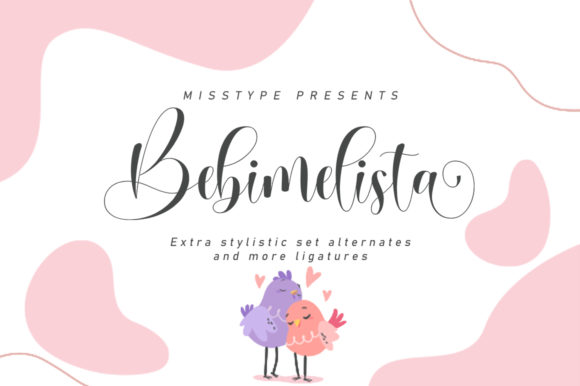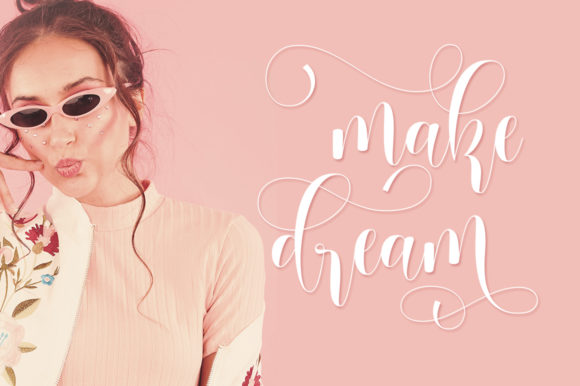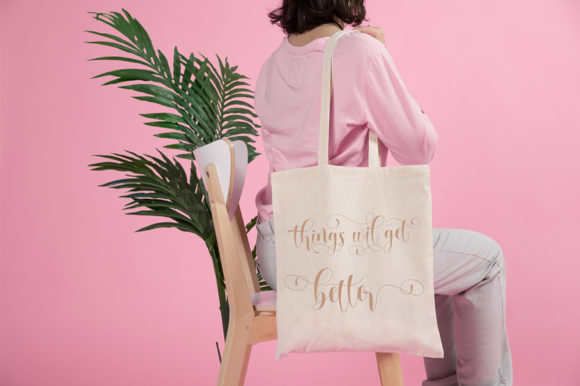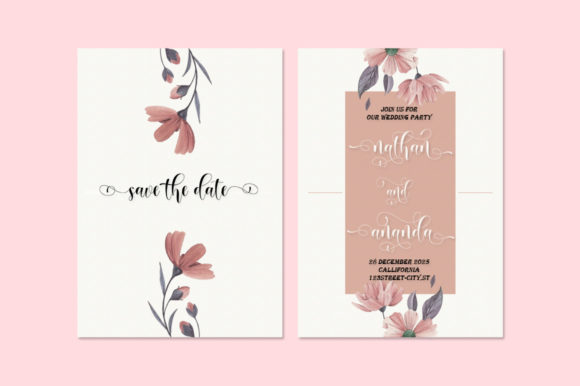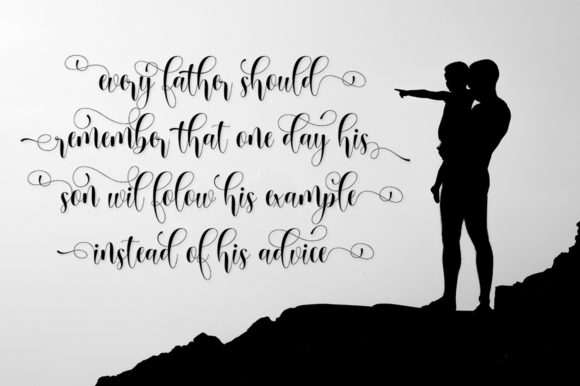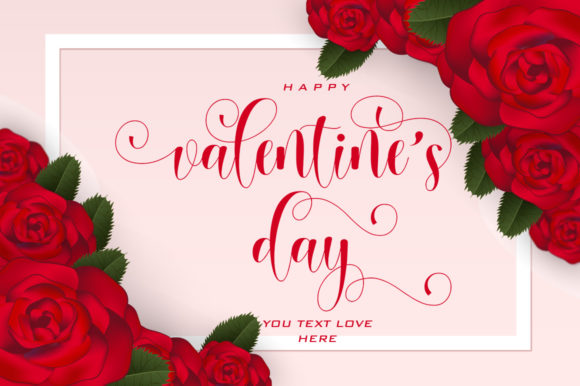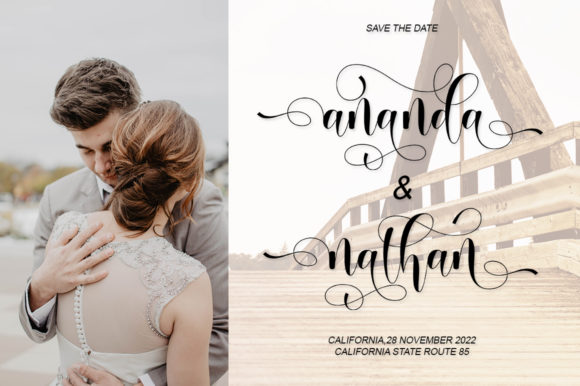
Bebimelista Font
About Bebimelista Font
Bebimelista is a gorgeous script font. The cute rounded characters make it the perfect font for creating outstanding designs. Get inspired by its authentic nuances and use it to create beautiful wedding invitations, beautiful artwork, eye-catching social media posts, and fun greeting cards.